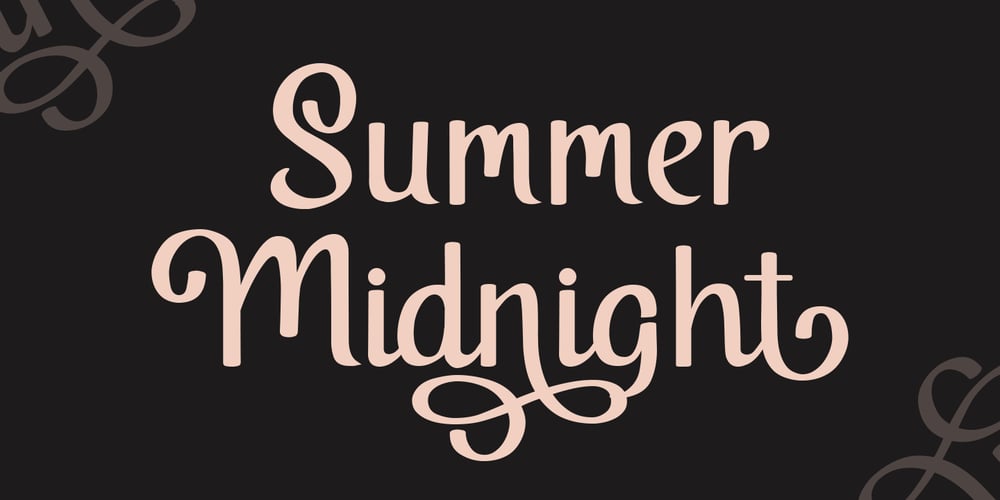
Summer Midnight Font Family was designed by Jos Gandos and published by Jos Gandos. Summer Midnight contains 1 styles and family package options. Summer Midnight is beautiful and elegant script font. Each glyph has its own uniqueness and when meeting with others will provide dynamic and pleasing proximity. Summer Midnight also comes with alternate style to make its style more unique and elegant.Summer Midnight will be perfect for your projects such as quotes, poster design, personal branding, promotional materials, logotype, product packaging and more.